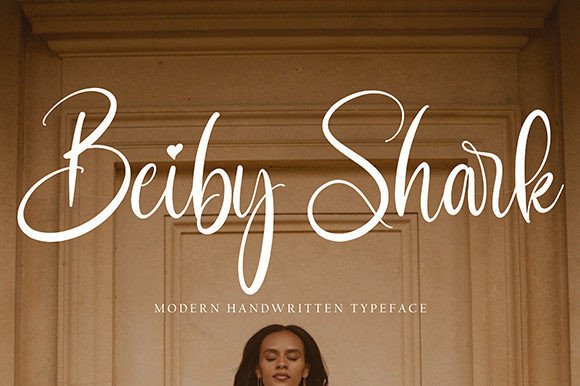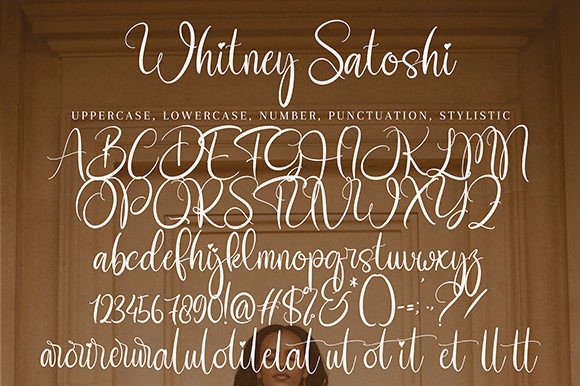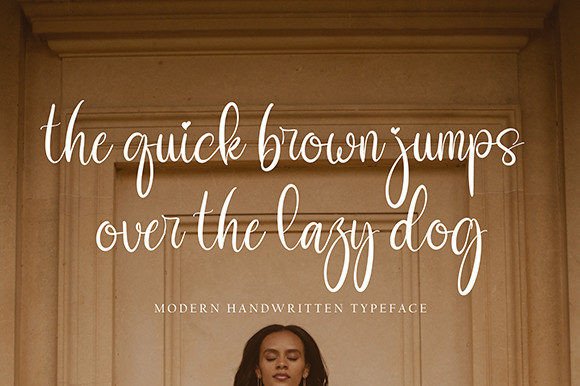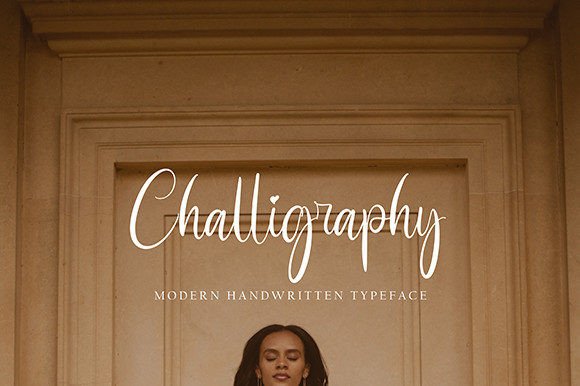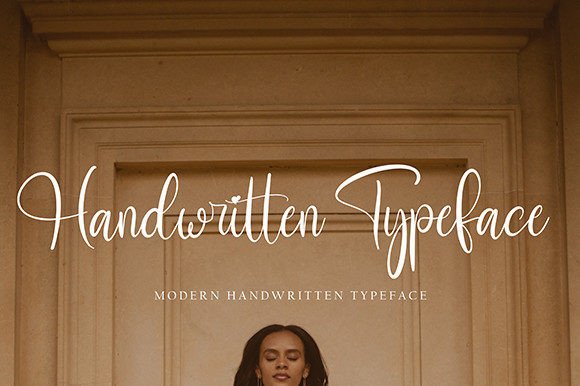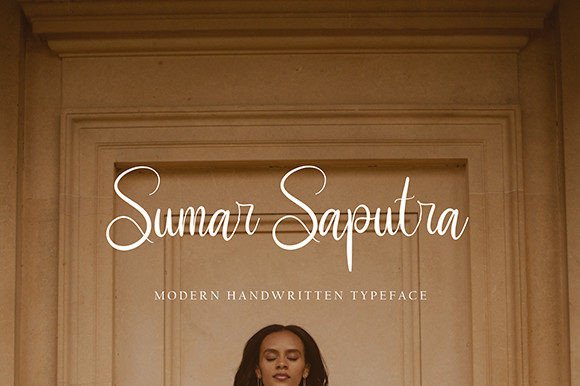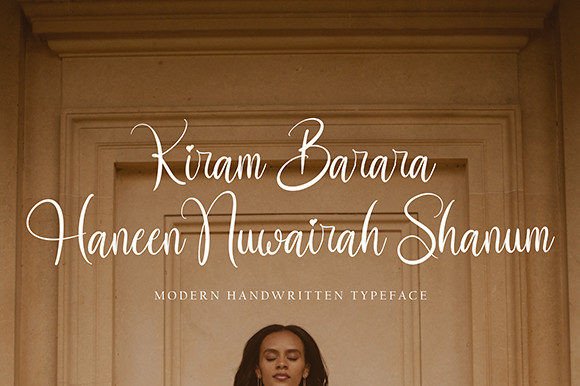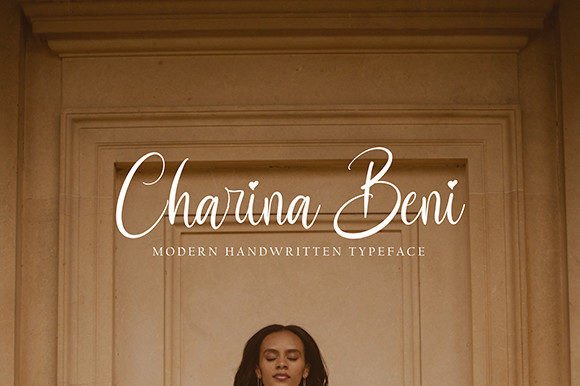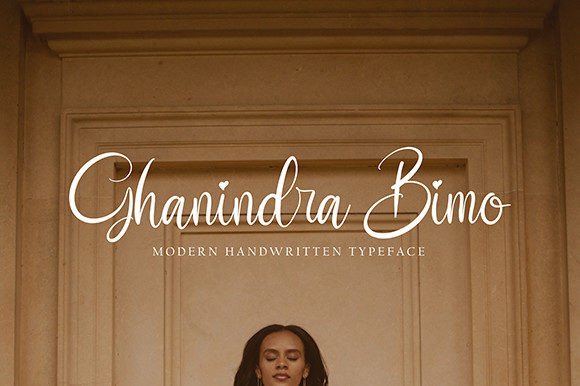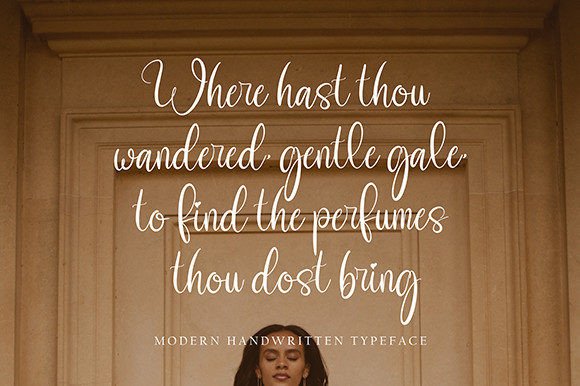
Whitney Satoshi Font
About Whitney Satoshi Font
“Whitney Satoshi” is not just a font; it’s an elegant script typeface crafted for a myriad of creative projects. With its graceful and flowing strokes, this font is well-suited for various applications including quotes, logos, blog headers, posters, branding, letters, invitations, stationery, and more.
The elegance of “Whitney Satoshi” is immediately apparent in its script design. Each letter is delicately shaped, conveying a sense of sophistication and beauty. This makes it an ideal choice for projects that require a font with a graceful and refined appeal.
The versatility of “Whitney Satoshi” becomes evident in its adaptability to various design contexts. Whether used in logos to create a distinctive brand identity or in blog headers to add a touch of elegance, this font confidently fits into a diverse range of creative projects.
Imagine “Whitney Satoshi” gracing invitations, where its elegant script adds a touch of class. Picture it in quotes, creating a visually appealing and refined statement. “Whitney Satoshi” becomes a font that not only looks elegant but also enhances the overall visual appeal of your designs.
In summary, “Whitney Satoshi” is not just a font; it’s a design companion that brings an elegant touch to your creative projects. Let it be the choice for adding sophistication to your branding, invitations, and more. With “Whitney Satoshi,” every project becomes an opportunity to showcase the beauty of script typography with a refined and graceful twist.